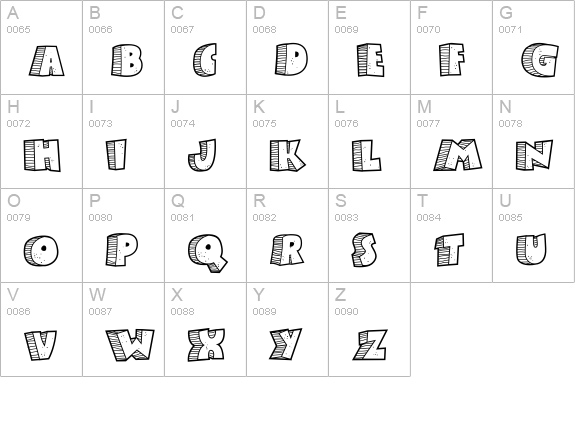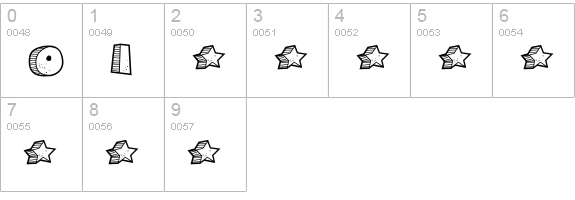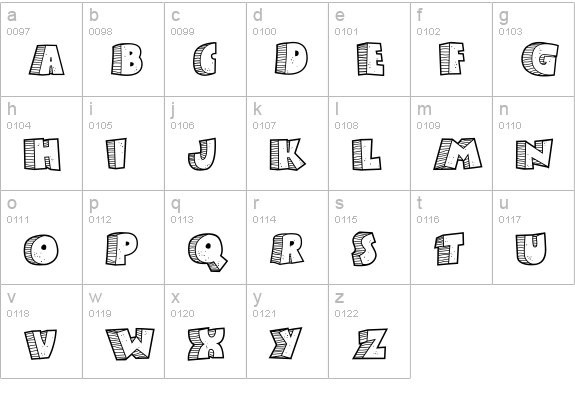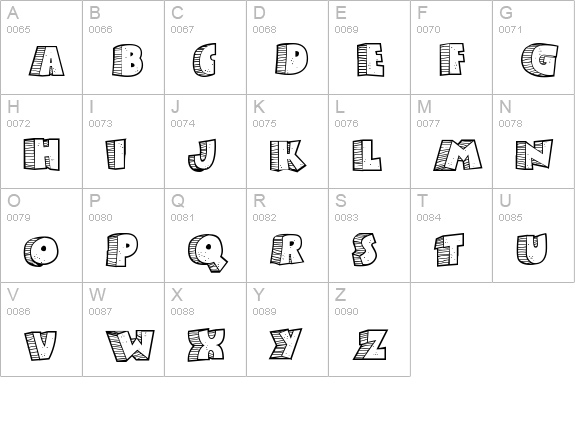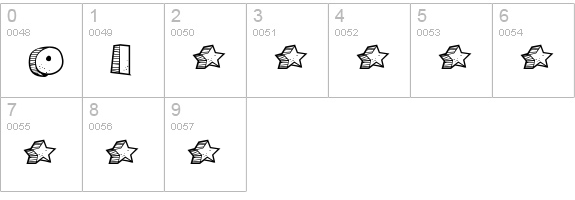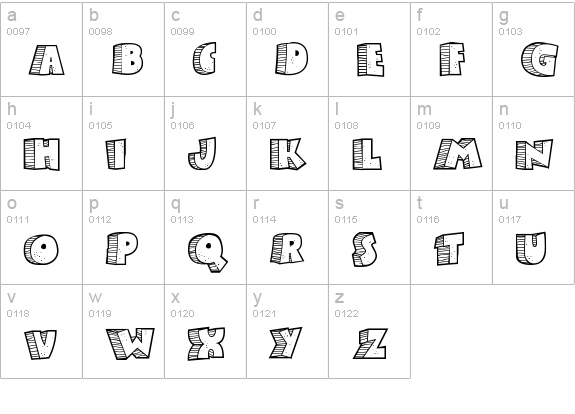
Stoney Billy font is a stunning display typeface that exudes a sense of elegance and sophistication. Designed with meticulous attention to detail, this font effortlessly blends classic and modern elements, making it perfect for a wide range of creative projects. With its bold and robust letterforms, Stoney Billy font is guaranteed to catch the eye and make a lasting impression. Its unique and distinct character makes it stand out from the crowd, adding a touch of uniqueness to any design. But what makes Stoney Billy font even more remarkable is the fact that it is free. Yes, you read that right - this exceptional font is freely available to download at FontsMarket.com. Whether you're a professional designer or a passionate hobbyist, you can now access this premium font without any cost. The ease of downloading Stoney Billy font from FontsMarket.com ensures that it is accessible to everyone, regardless of their design expertise or budget. This font opens up a world of possibilities for both personal and commercial projects, allowing you to create captivating logos, eye-catching headlines, stunning posters, and much more. So, why wait? Take advantage of this incredible opportunity and elevate your designs with the exquisite Stoney Billy font. Download it for free at FontsMarket.com and let your creativity shine.